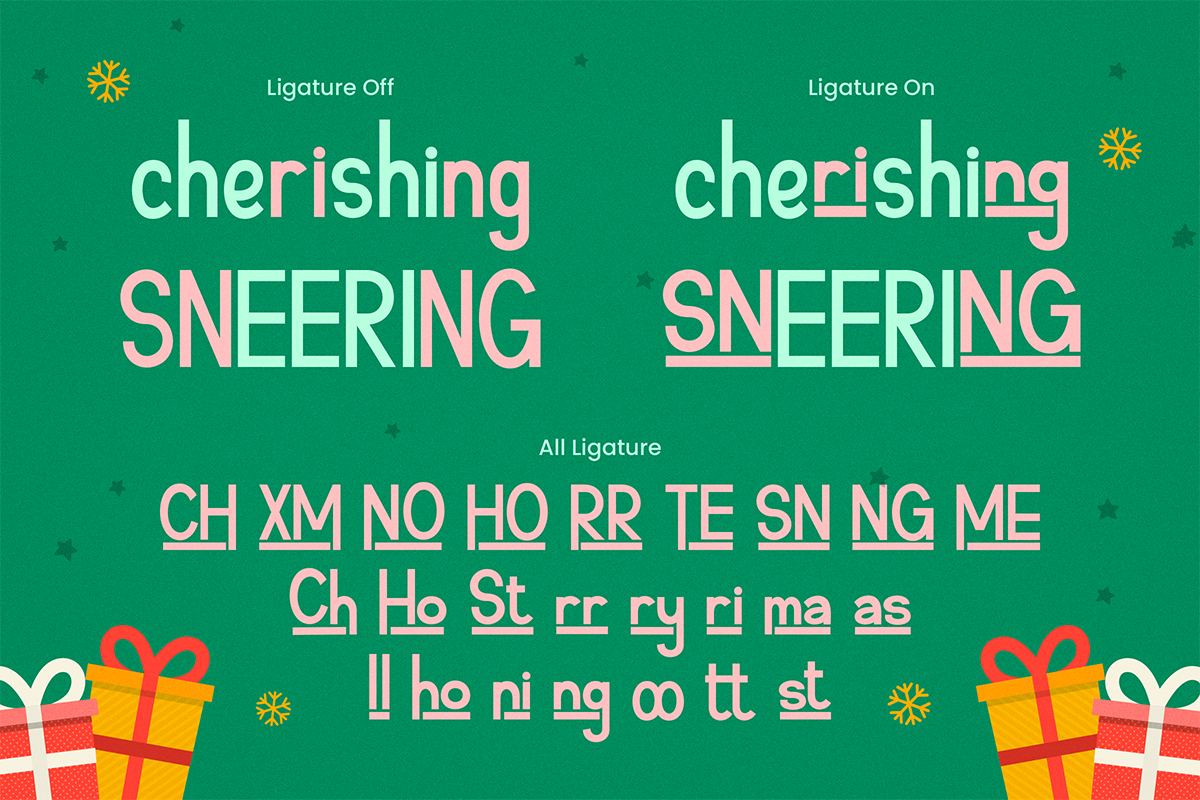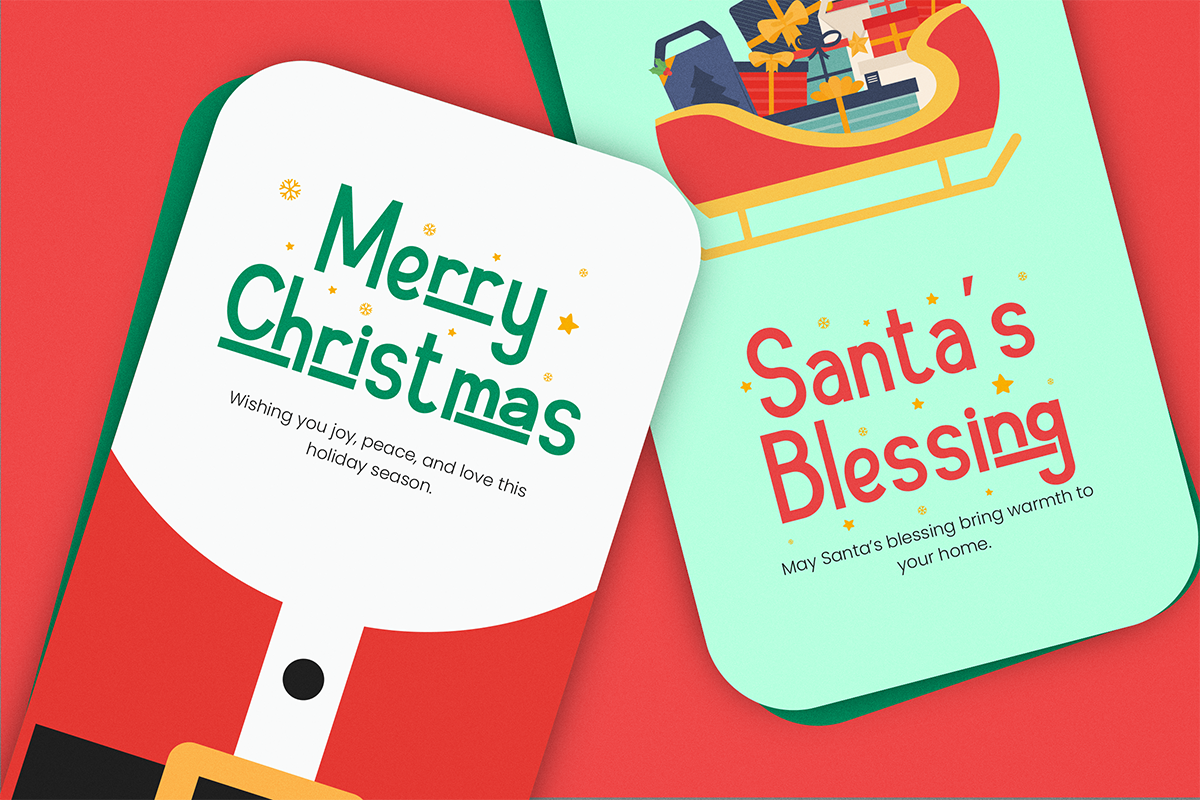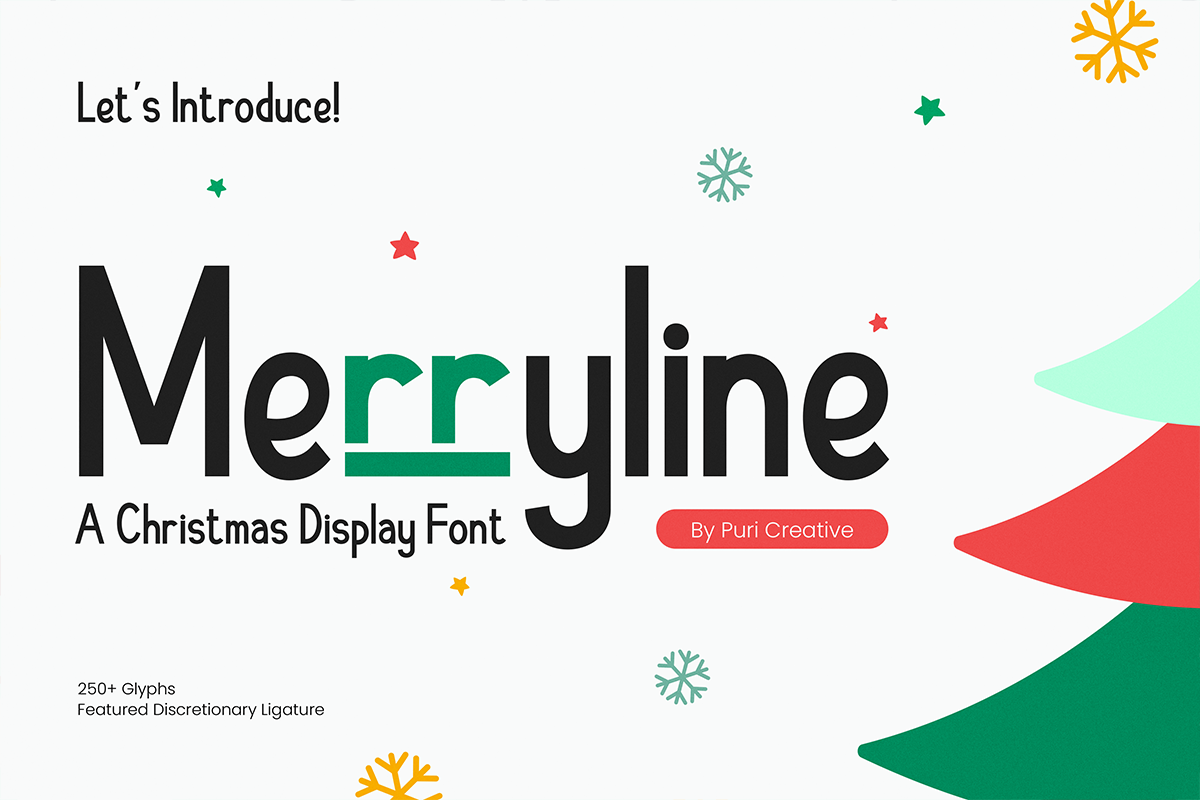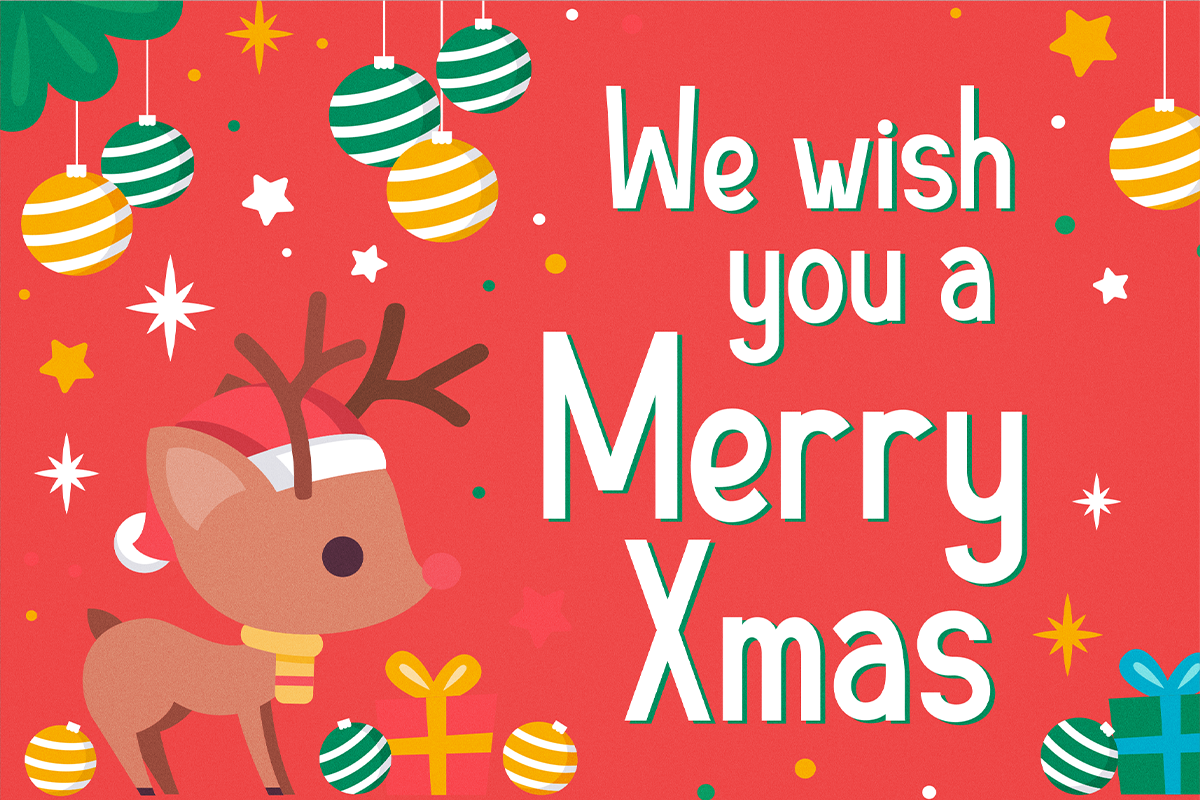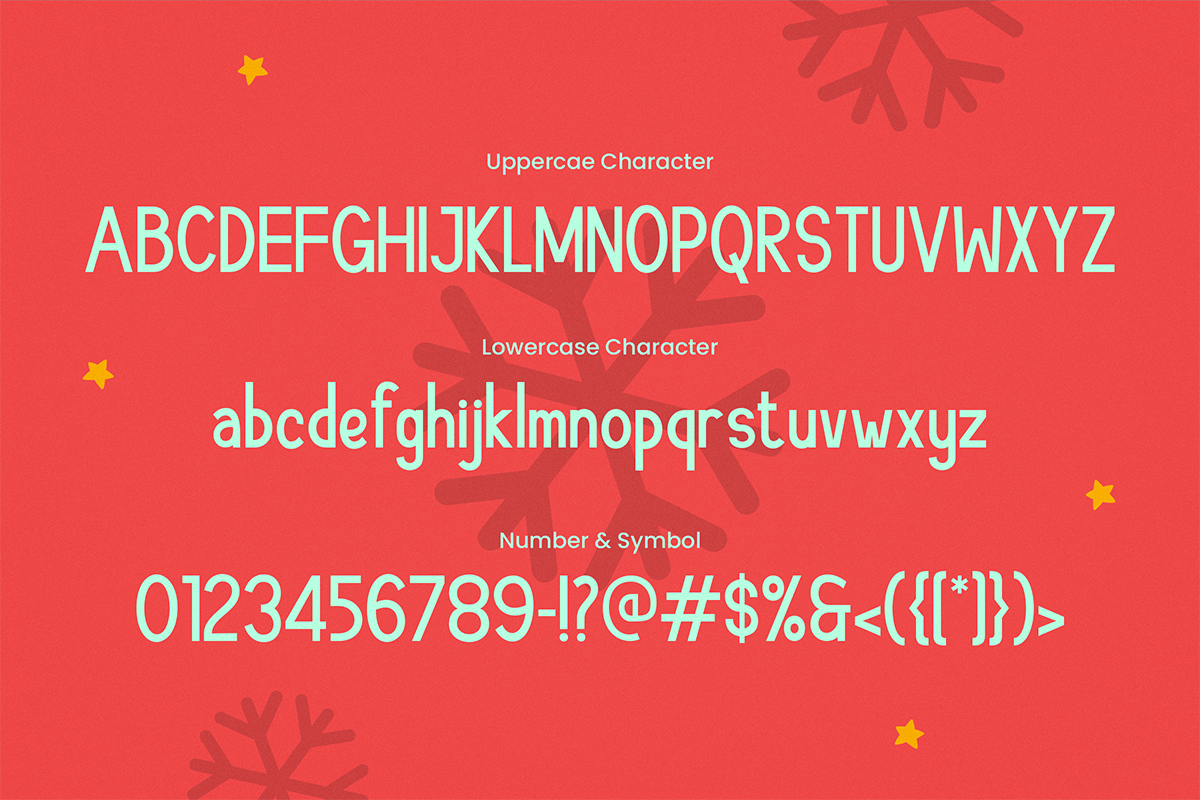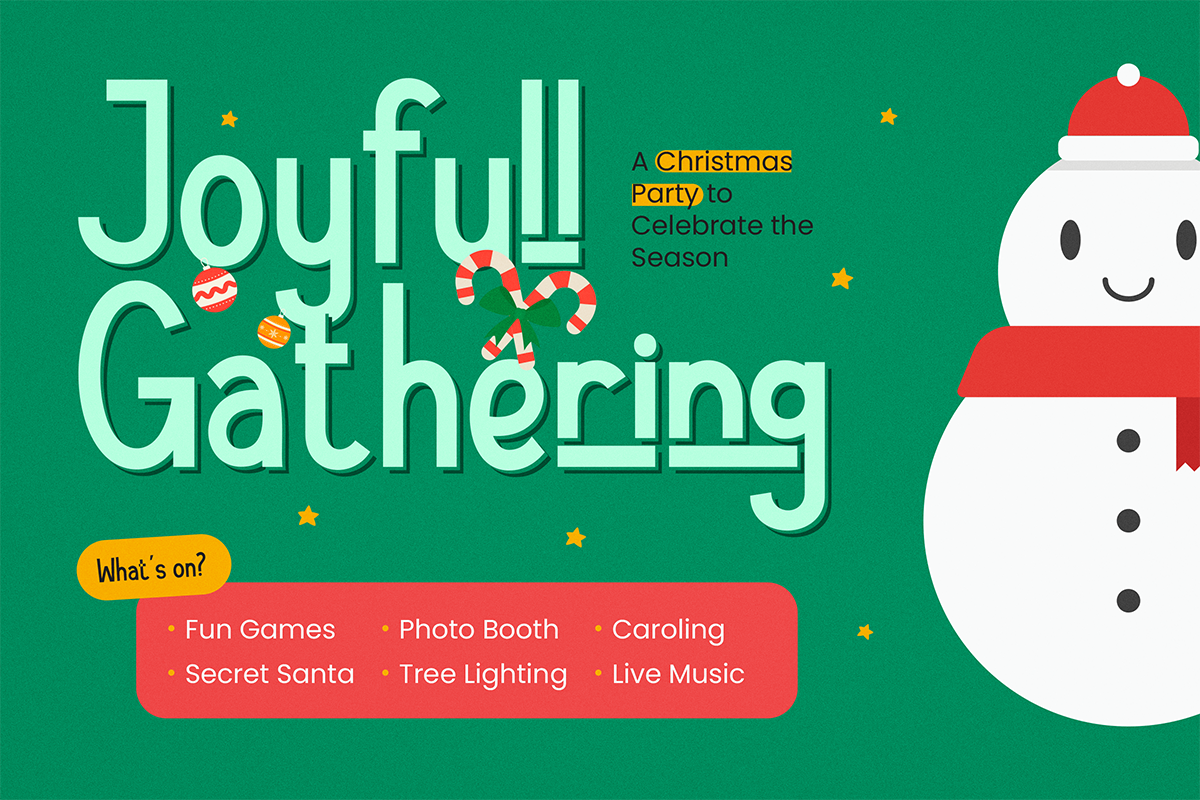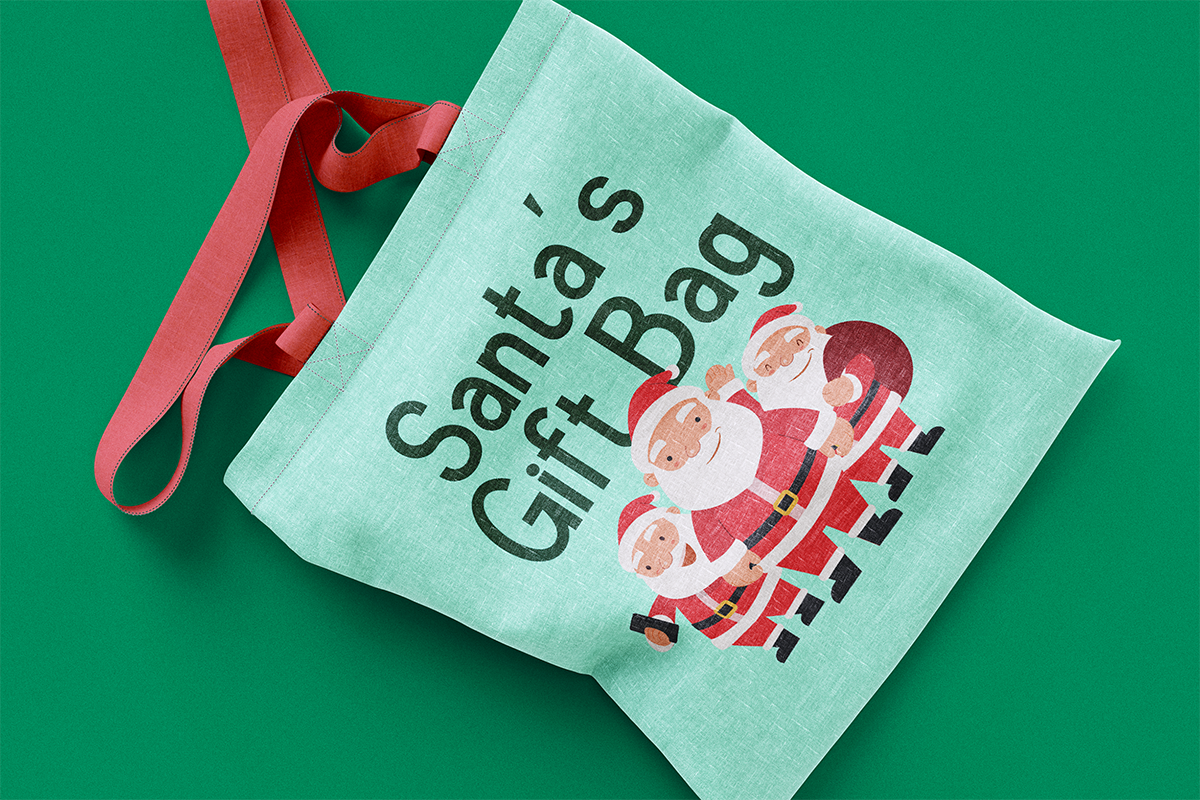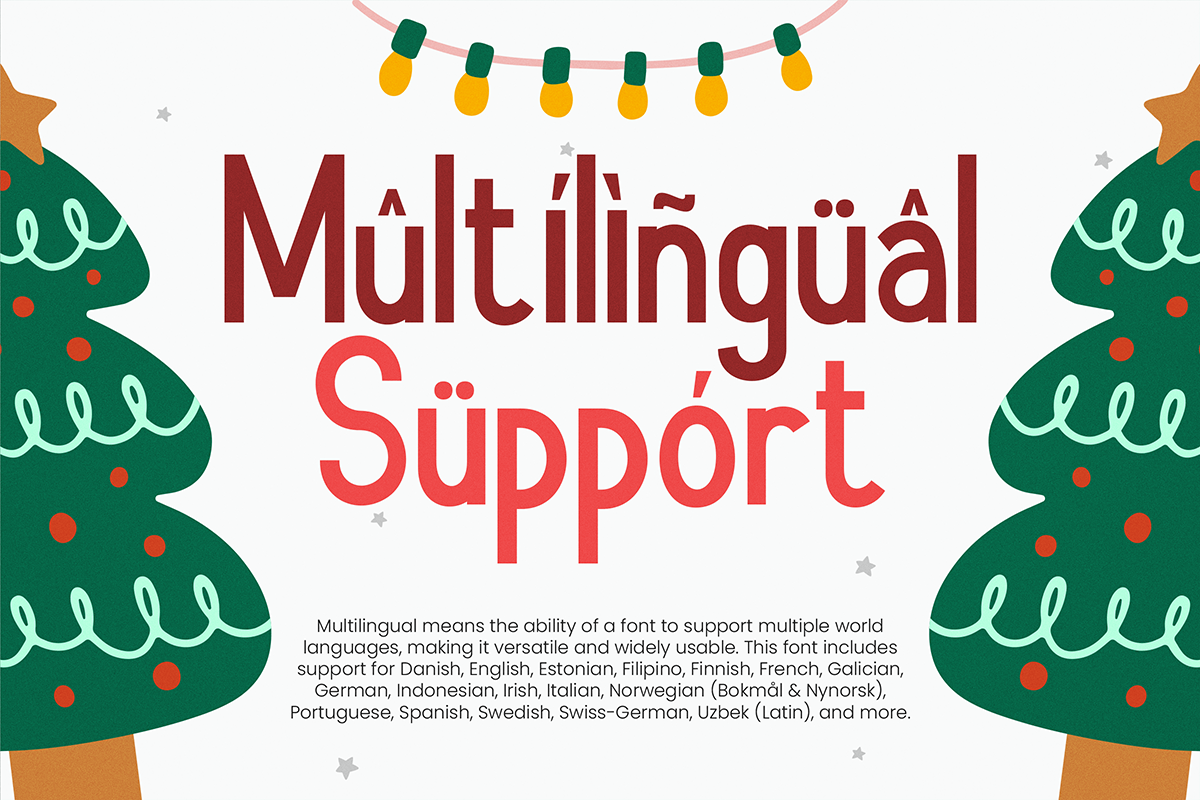
Merryline - Christmas Display Font
Introducing Merryline — A Festive Display Typeface for Christmas and Holiday Cheer
Merryline is a joyful display typeface designed to capture the warmth, fun, and spirit of the holiday season. With its playful letterforms and cheerful ligatures, Merryline brings a festive touch to any design, making it perfect for Christmas cards, party invitations, seasonal branding, and holiday merchandise.
The typeface features a unique combination of clean geometric shapes with quirky details that add personality and joy. Special ligatures enhance its versatility, giving you endless ways to create delightful lettering compositions full of holiday charm.
Crafted with both uppercase and lowercase letters, Merryline balances readability with character, ensuring your designs stand out whether on posters, packaging, or social media graphics. Every glyph is made to celebrate togetherness, warmth, and the festive magic of Christmas.
- Uppercase & Lowercase Letters
- Bonus Alternate & Ligature Letters
Fonts include multilingual support for: Afrikan, Danish, Dutch, English, Estonian, Filipino, Finnish, French, Friulian, Galician, German, Gusii, Indonesian, Irish, Italian, Luxembourgish, Norwegian Bokmål, Nynorsk, Nyankole, Oromo, Portuguese, Romansh, Spanish, Swedish, Swiss-German, Uzbek (Latin), Scottish, Swiss, etc.